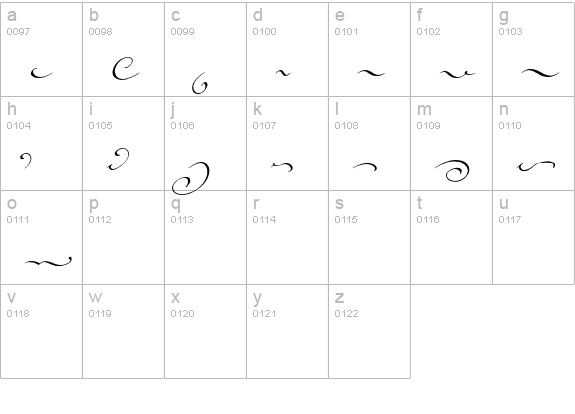
Voluta Script Swash Font Details
Introducing Voluta Script Swash, a stunningly elegant font that effortlessly combines grace and sophistication. With its delicate, flowing curves and intricate swashes, this typeface is sure to captivate and inspire. Each letter is meticulously crafted to perfection, resulting in a truly unique and timeless design. Voluta Script Swash is the epitome of versatility, making it perfect for a wide range of creative projects. Whether you're designing wedding invitations, branding materials, or even crafting a personalized logo, this font will add a touch of elegance and refinement to any design. What's more, Voluta Script Swash is available for free download exclusively at FontsMarket.com. That's right, you can effortlessly elevate your designs without breaking the bank. This font truly embodies the spirit of creativity, allowing designers of all levels to freely explore and experiment with its endless possibilities. So why wait? Download Voluta Script Swash today and unlock a world of beauty and imagination. Let your designs speak volumes with this exquisite font, and watch as your creations come to life with every stroke. Embrace the beauty of Voluta Script Swash and let your imagination run wild.